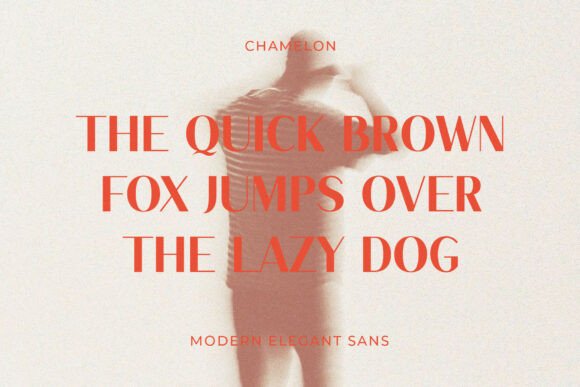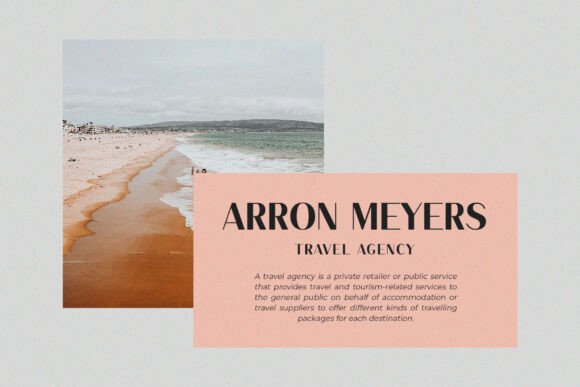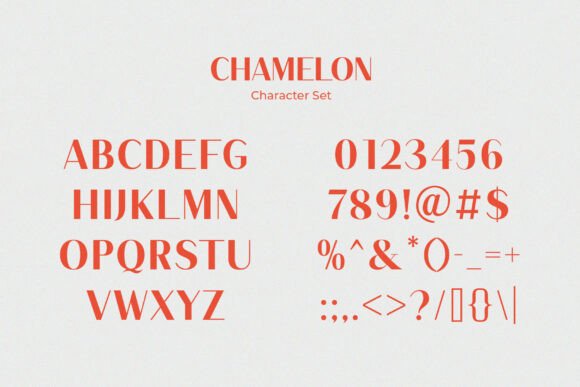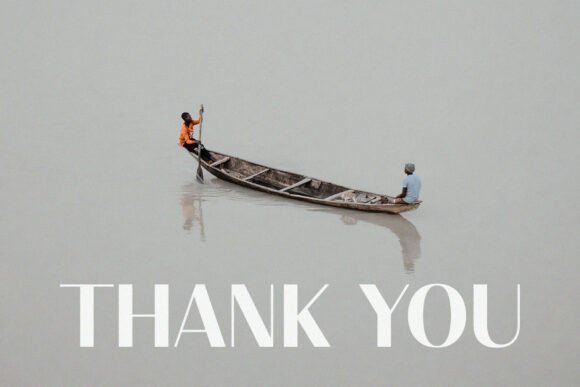
Introducing Chamelon Font: Elevate Your Design with Elegance and Sophistication
In the world of typography, fonts play a crucial role in conveying the tone and personality of a brand or design. For designers and crafters seeking to make a statement, Chamelon Font is an exceptional choice. This stylish sans serif font boasts high contrast and refined proportions, making it perfect for upscale branding, editorial design, and fashion-forward projects.
The Characteristics of Chamelon Font
Chamelon Font is distinguished by its elegant structure and contemporary flair. Its sans serif design ensures a clean and modern look, while the high contrast between thick and thin lines adds a touch of sophistication. The refined proportions of each letter contribute to a harmonious and balanced appearance, making it ideal for a variety of applications.
Perfect for Upscale Branding
When it comes to branding, a font can make or break the identity of a company. Chamelon Font is specifically designed to deliver a luxurious and high-end feel, making it perfect for brands that aim to convey sophistication and elegance. Whether used in logos, business cards, or packaging, Chamelon Font is sure to leave a lasting impression.
Editorial Design and Magazine Headlines
In the world of editorial design, fonts play a critical role in capturing the reader’s attention. Chamelon Font is an excellent choice for magazine headlines, article titles, and even body copy. Its elegant structure and high contrast ensure that your content stands out, while its refined proportions maintain readability.
Fashion-Forward Projects
For fashion designers and brands, typography is an essential element in communicating style and sophistication. Chamelon Font is perfect for fashion-forward projects, including fashion magazines, lookbooks, and brand advertising. Its contemporary flair and high-end feel ensure that your designs are always on-trend.
Key Features of Chamelon Font
- Stylish sans serif design: A clean and modern look that’s perfect for a variety of applications.
- High contrast: Adds a touch of sophistication and elegance to your designs.
- Refined proportions: Ensures a harmonious and balanced appearance.
- Elegant structure: Conveys sophistication and luxury.
- Contemporary flair: Keeps your designs fresh and on-trend.
Tips for Using Chamelon Font
To get the most out of Chamelon Font, consider the following tips:
- Use it as a headline font: Chamelon Font is perfect for grabbing attention and making a statement.
- Pair it with a serif font: Create a beautiful contrast by pairing Chamelon Font with a serif font for body copy.
- Experiment with font sizes: Chamelon Font looks great in a variety of font sizes, from large headlines to smaller body copy.
Chamelon Font is an exceptional choice for designers and crafters seeking to elevate their designs with elegance and sophistication. Its stylish sans serif design, high contrast, and refined proportions make it perfect for upscale branding, editorial design, and fashion-forward projects. With its elegant structure and contemporary flair, Chamelon Font delivers sophistication with every letter.